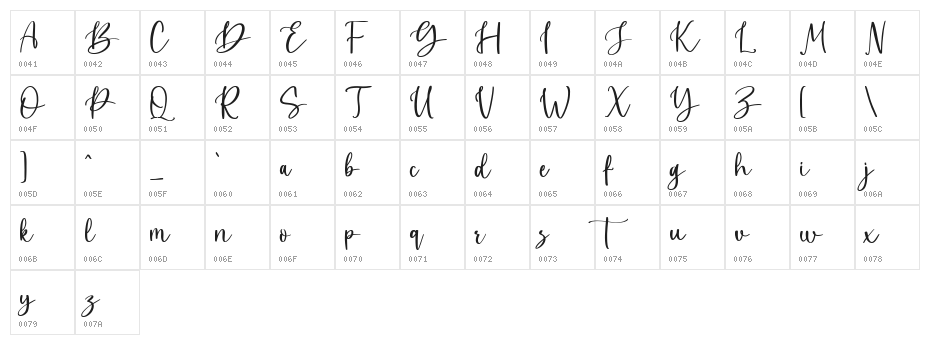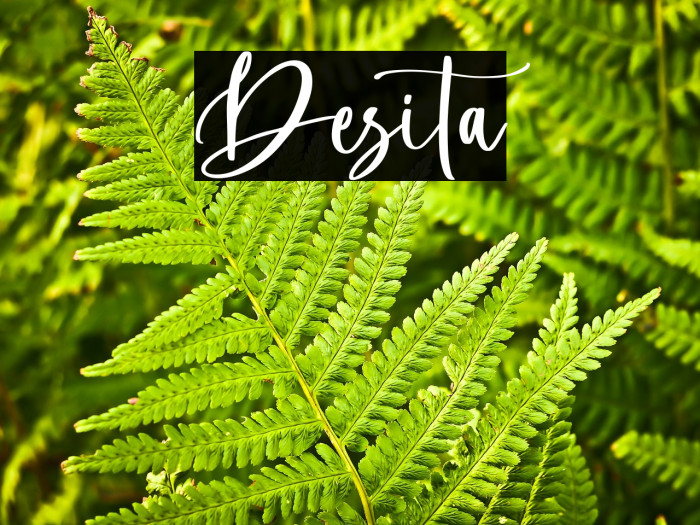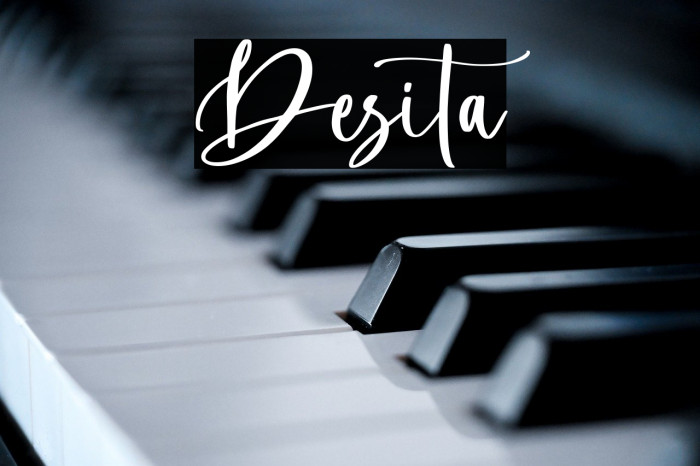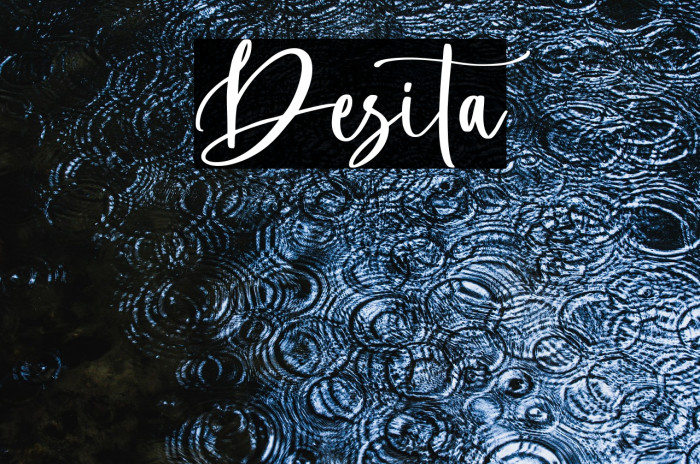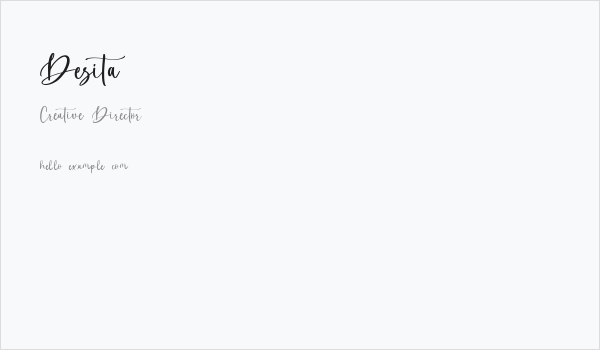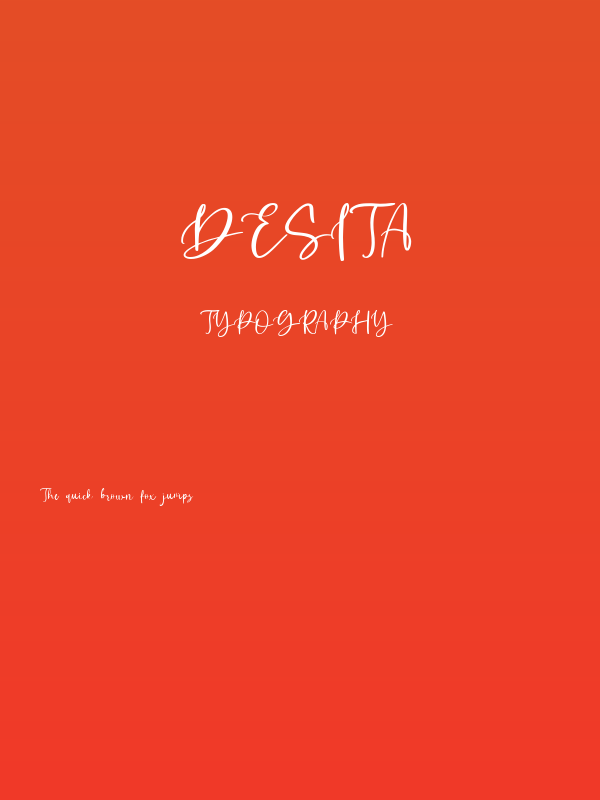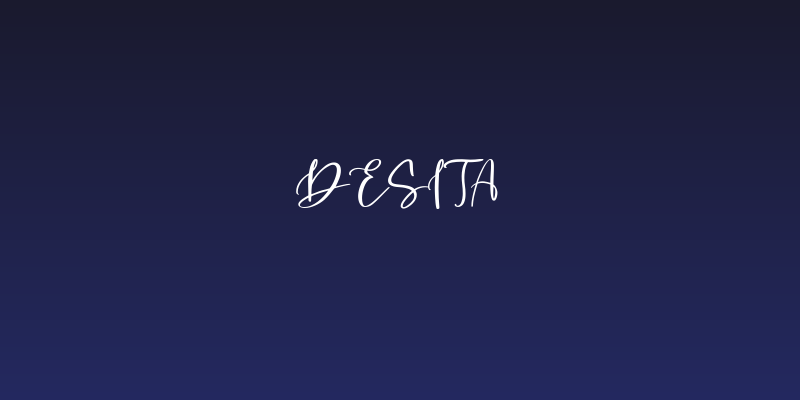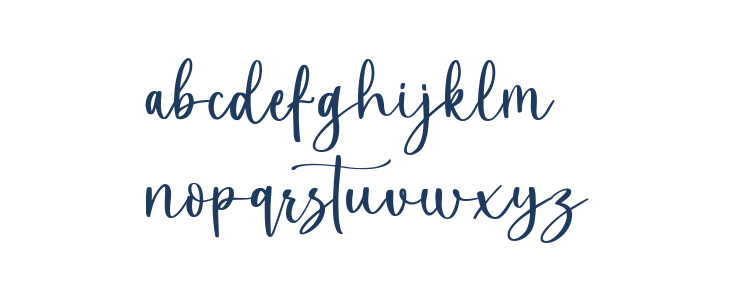
Desita Font
Desita Description
This font features an elegant and flowing script style, characterized by its smooth, cursive letterforms that exude a sense of sophistication and grace. The uppercase letters are slightly more ornate, with decorative flourishes that enhance their visual appeal. The lowercase letters maintain a consistent fluidity, making them highly legible while retaining their artistic flair. The font's overall appearance is both modern and timeless, suitable for a variety of design applications. Its balanced weight and consistent stroke width contribute to its readability, while the slight slant adds a dynamic touch. This font is perfect for projects that require a touch of elegance and personality.
| Overall Style | Elegant, Modern |
| Proposed Projects | Ideal for wedding invitations, greeting cards, branding, and elegant logo designs. |